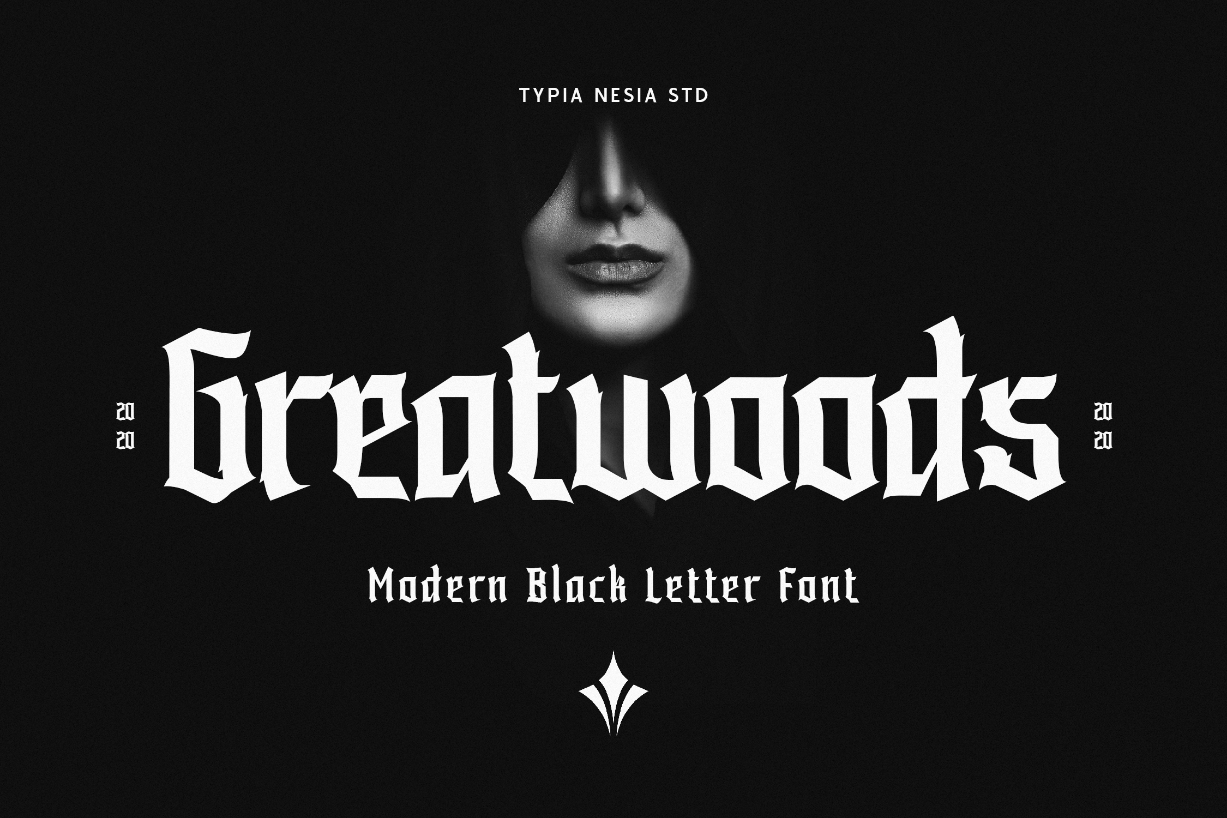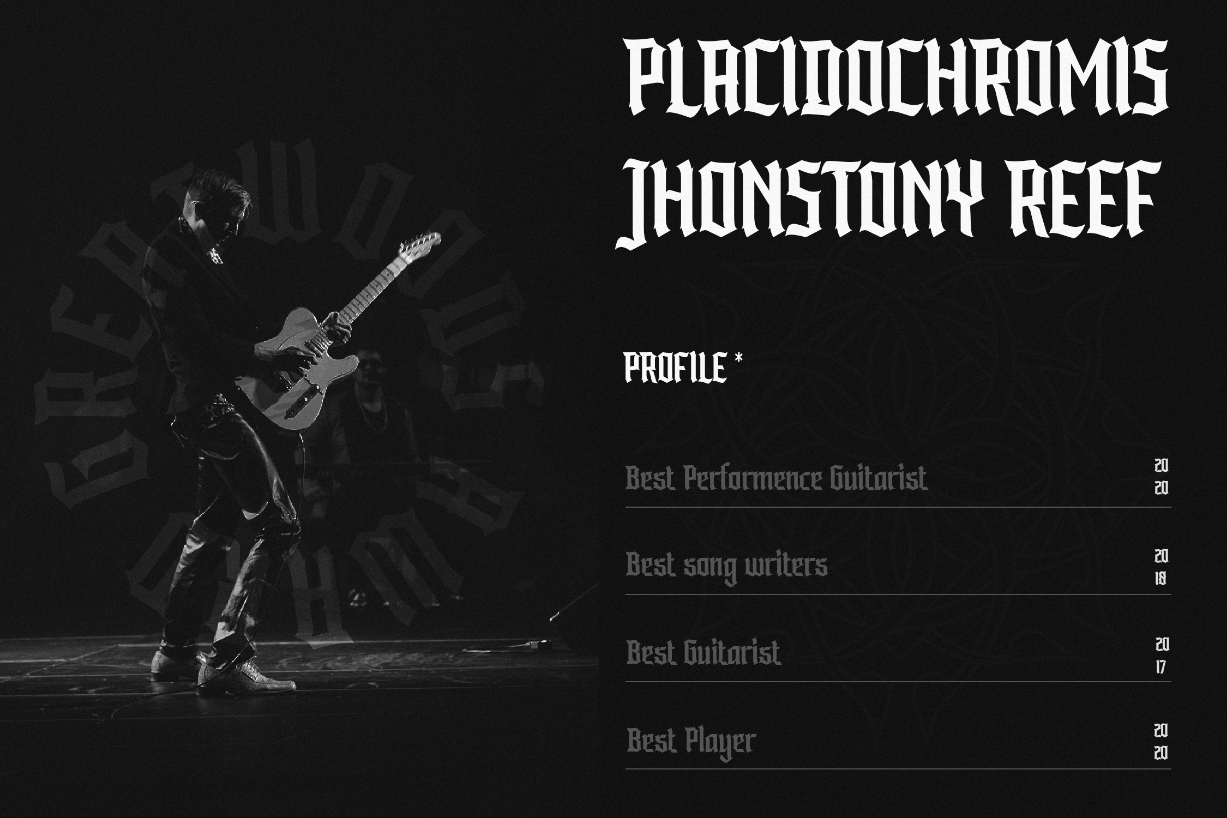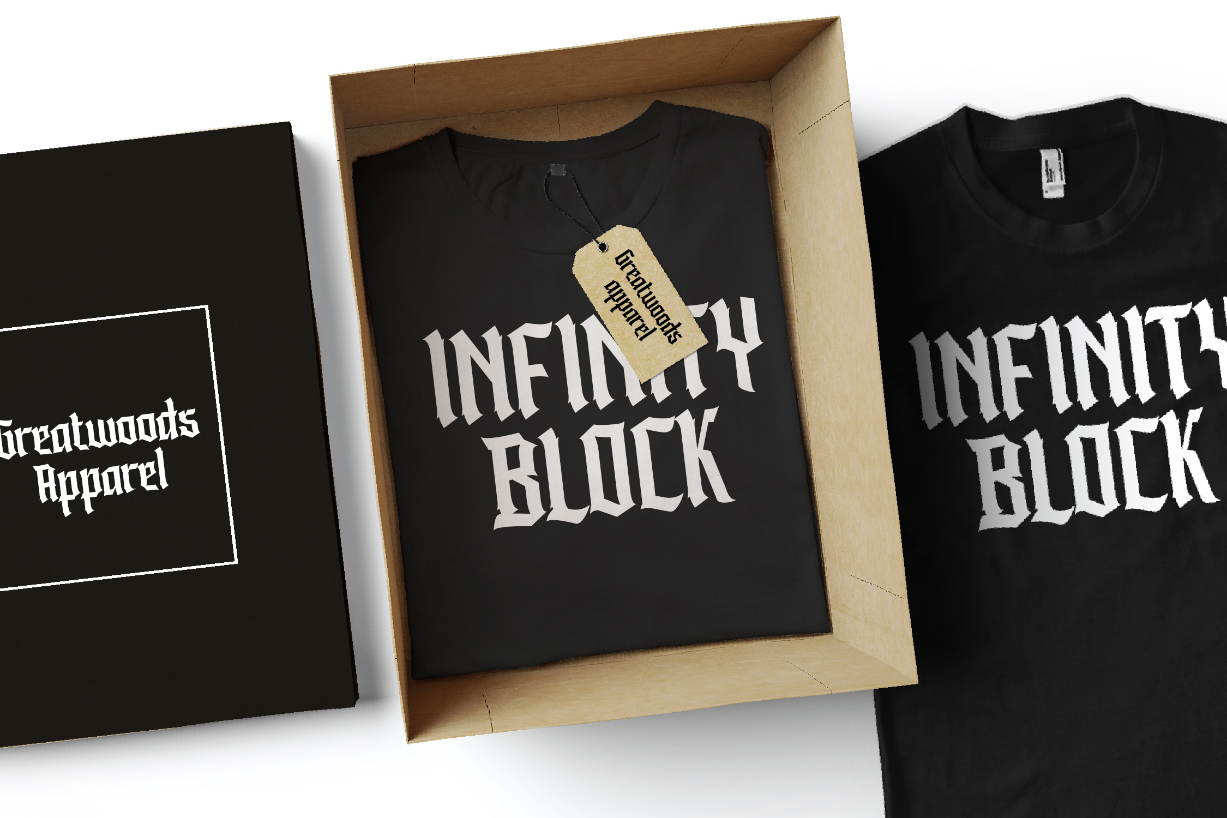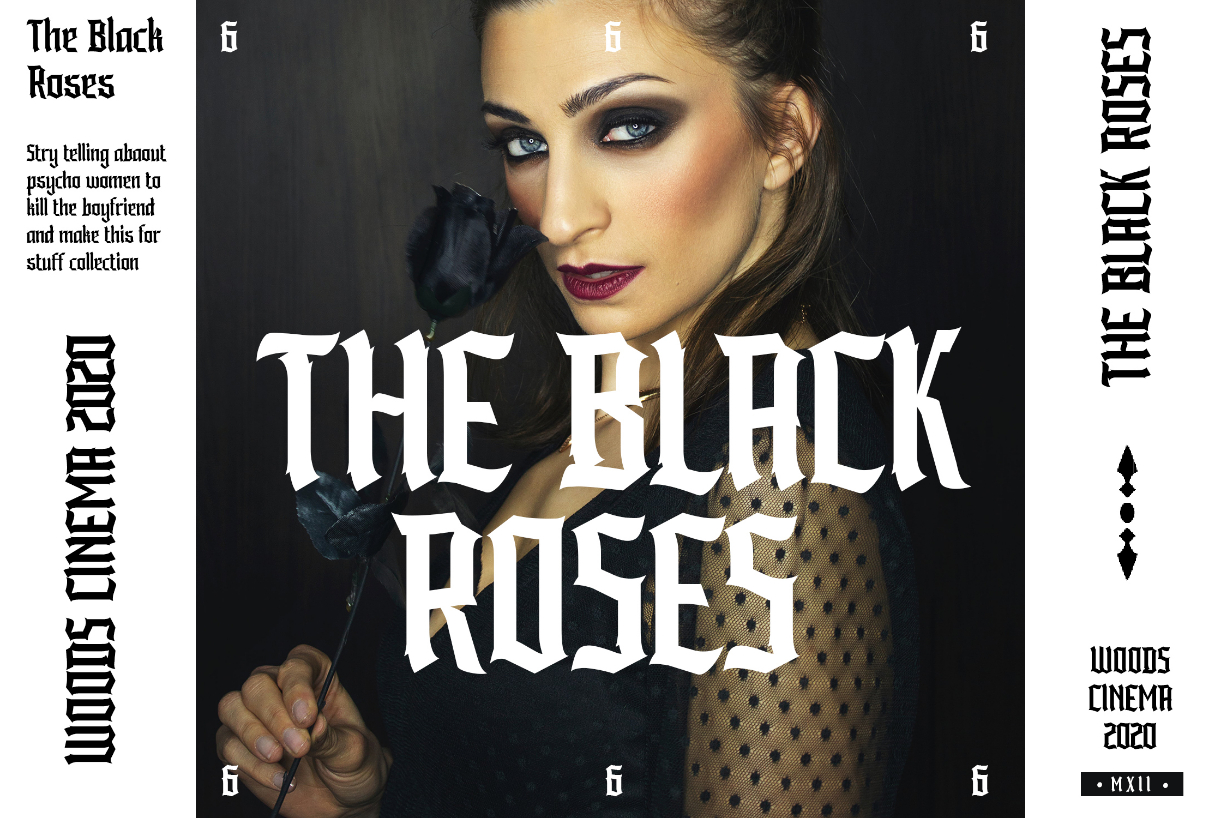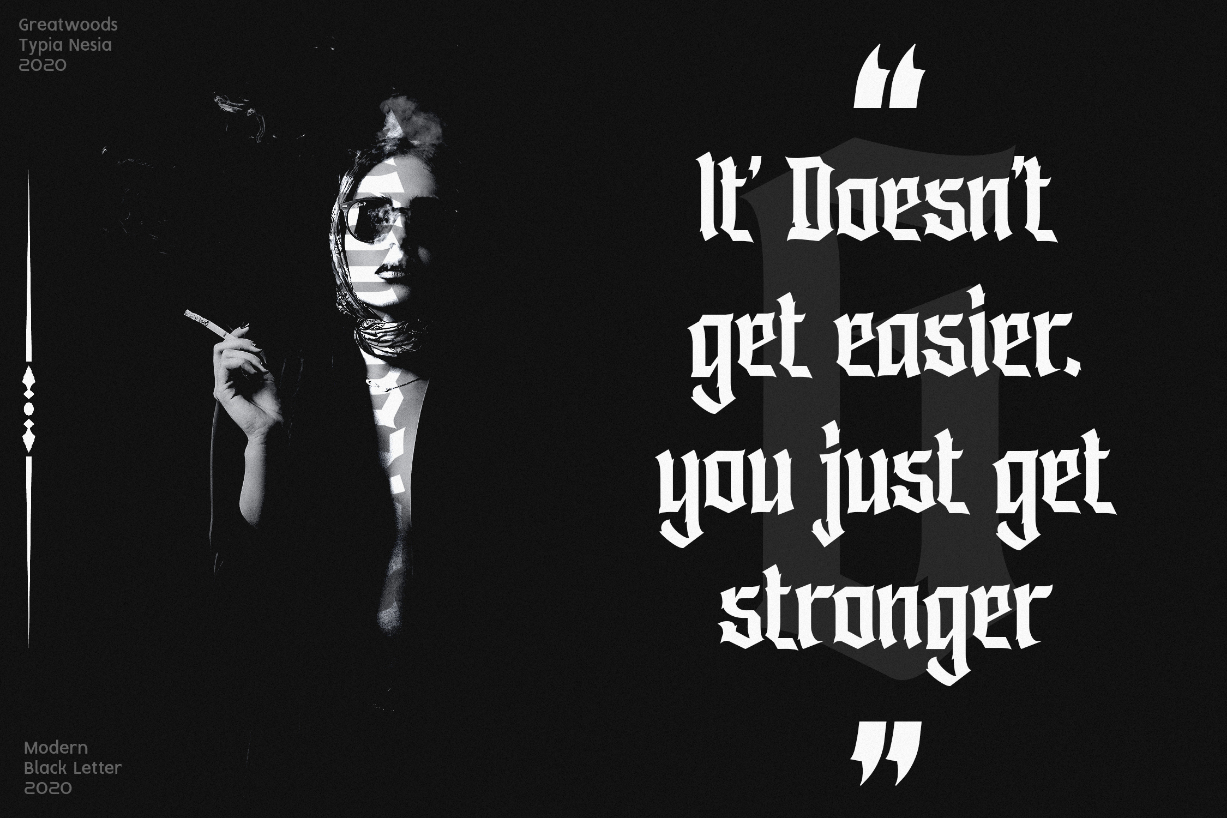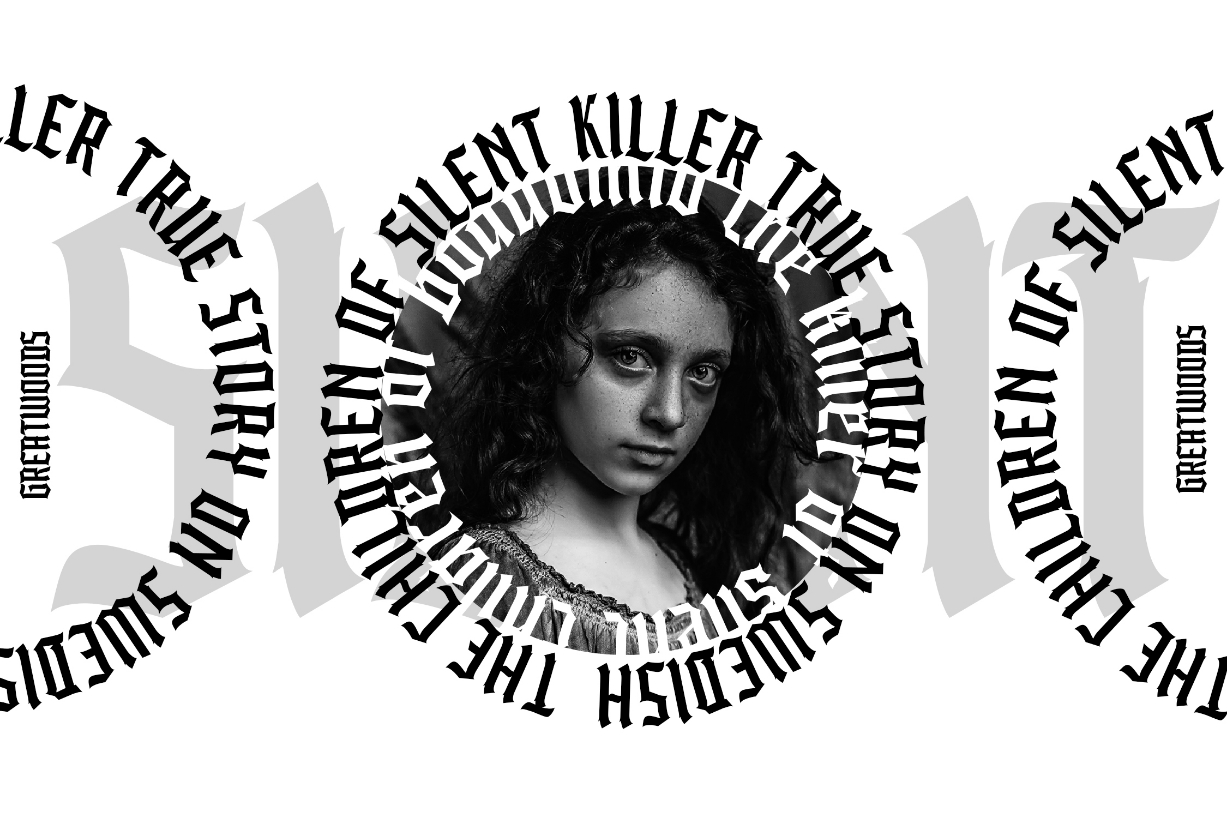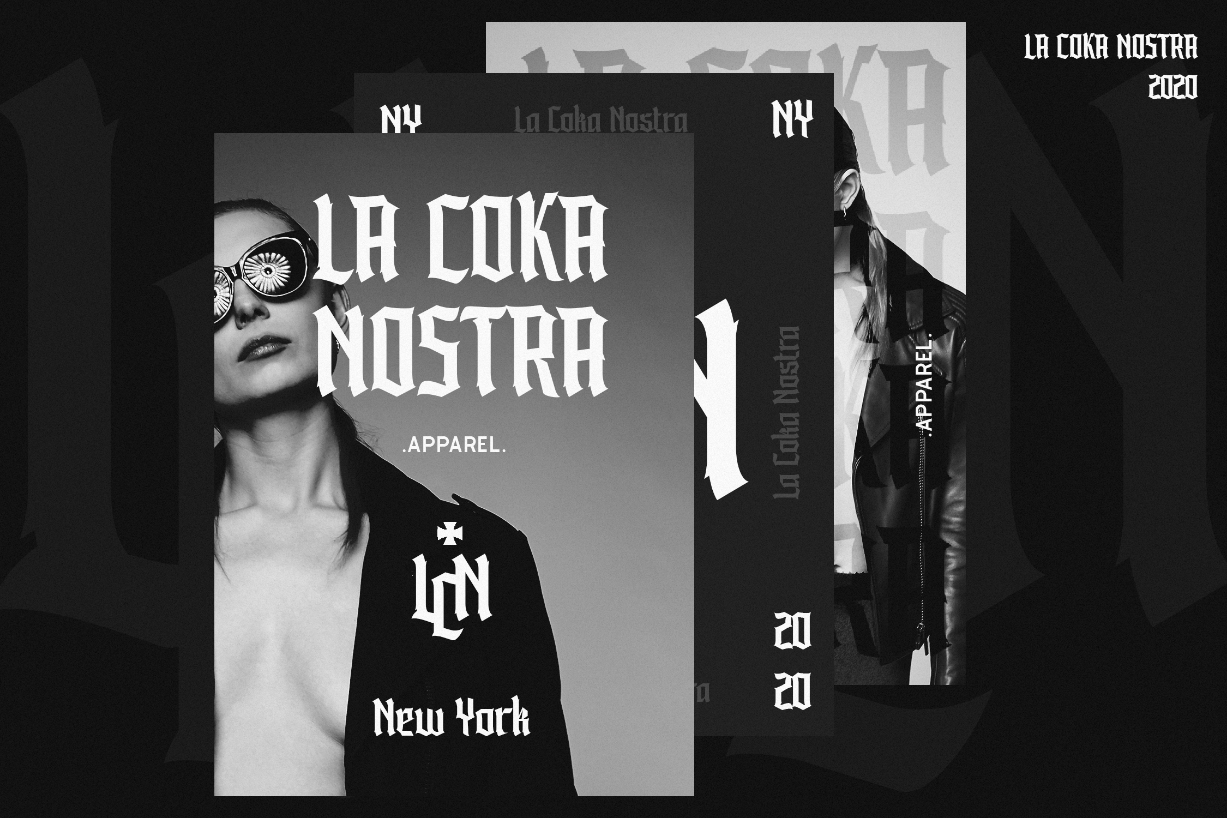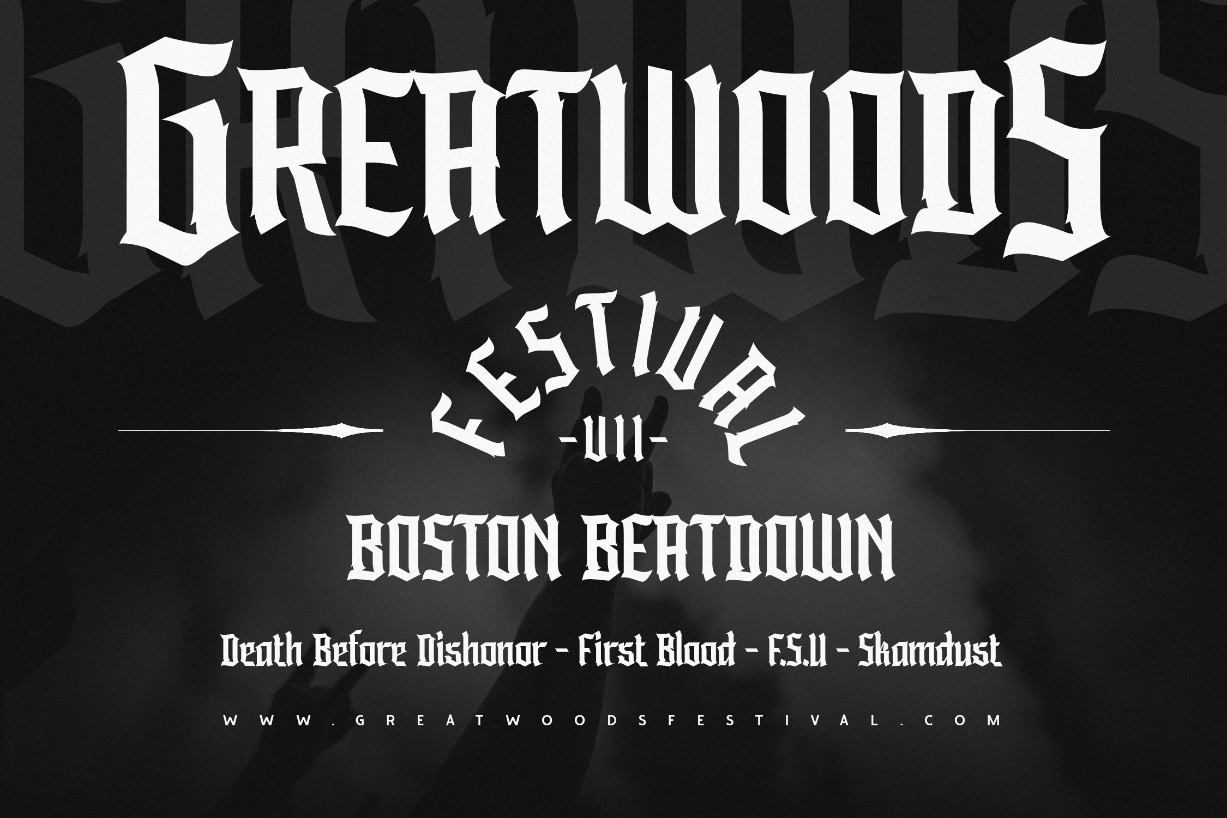
Greatwoods Font
About Greatwoods Font
Greatwoods is a bold and thick lettered blackletter font. No matter the topic, this font will be an incredibly asset to your fonts’ library, as it has the potential to elevate any creation.